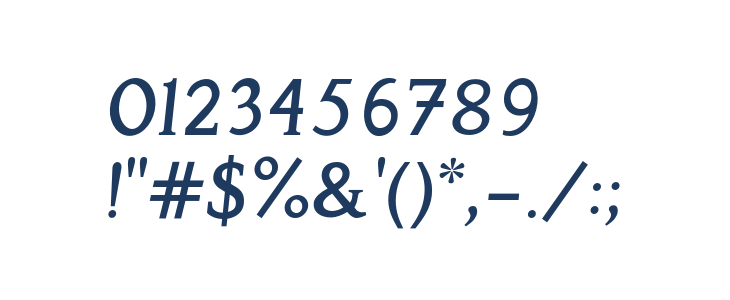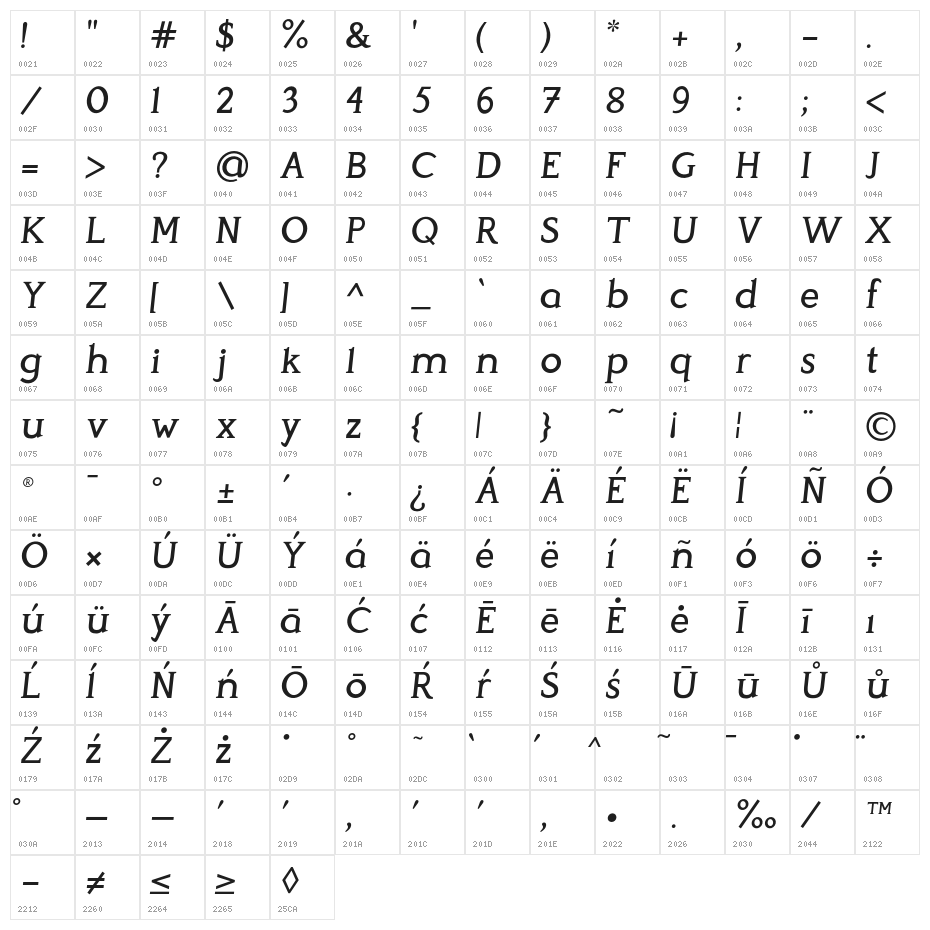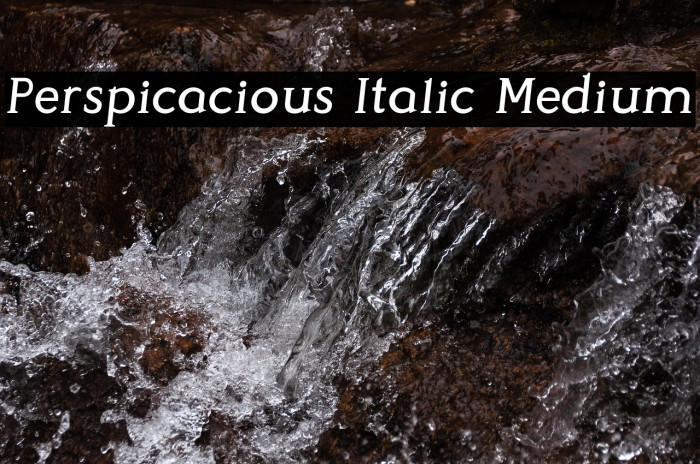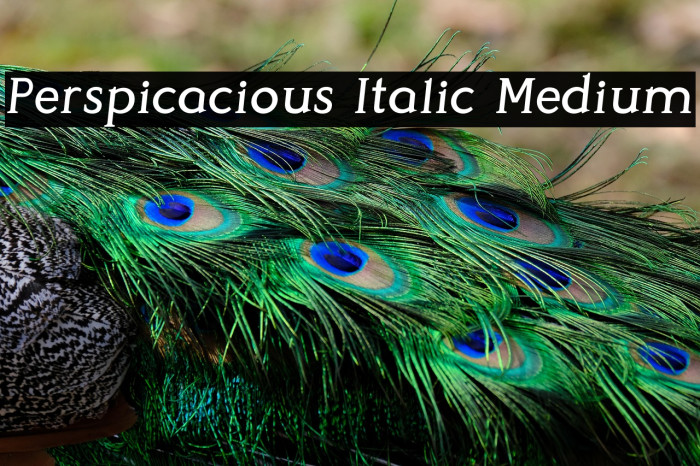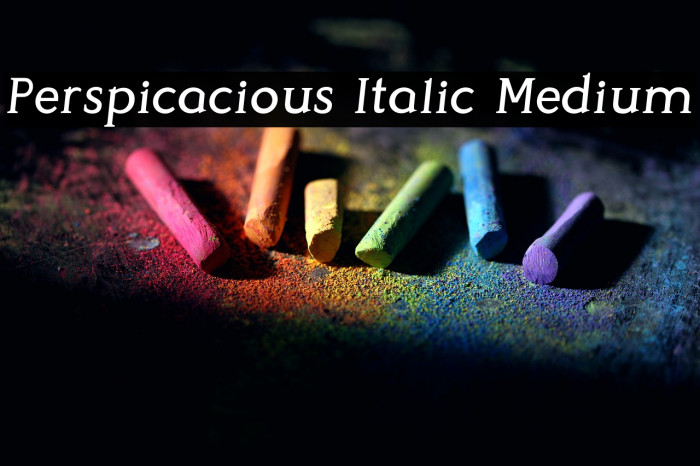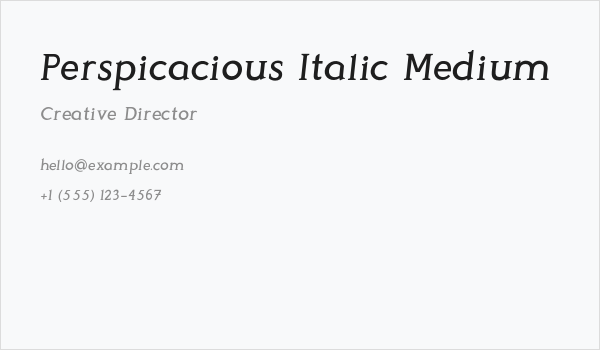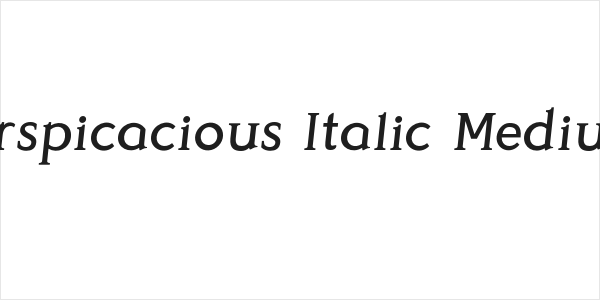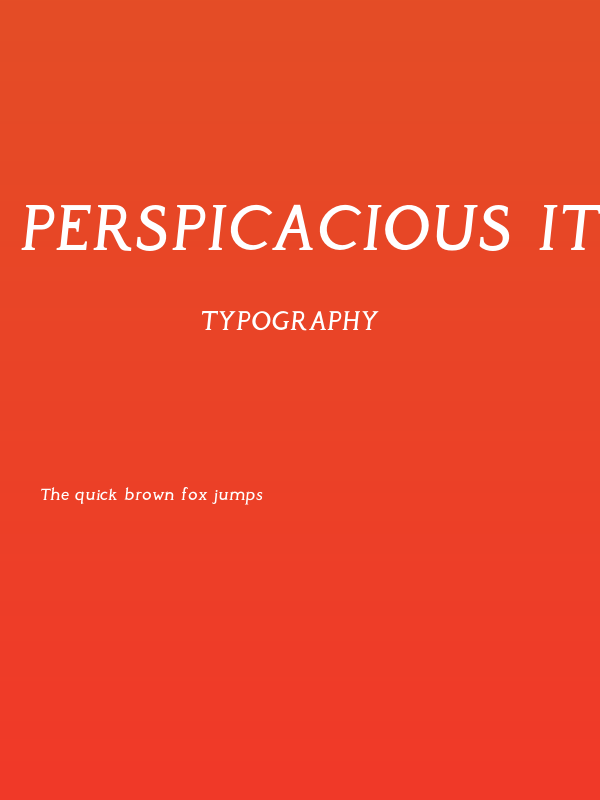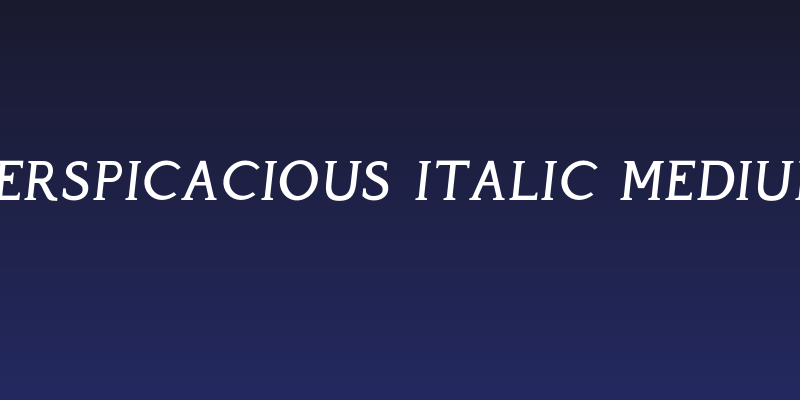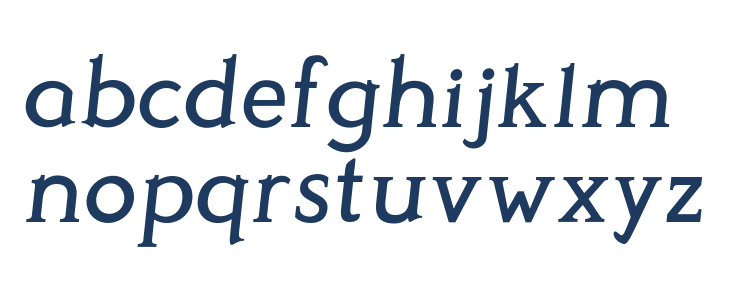
Perspicacious Italic Medium Font
Perspicacious Italic Medium Description
This font exhibits a classic serif style with a distinct italic slant, giving it a sophisticated and elegant appearance. The medium weight provides a balanced presence, making it suitable for both formal and creative applications. The serifs are pronounced yet refined, adding a touch of tradition to the overall design. The characters are well-proportioned, with a moderate contrast between thick and thin strokes, enhancing readability while maintaining an artistic flair. The spacing between characters is normal, ensuring clarity and legibility across various sizes. This font's timeless appeal makes it versatile for a wide range of design projects.
| Proposed Projects | Ideal for book covers, editorial layouts, branding, and invitations where a touch of elegance is desired. |